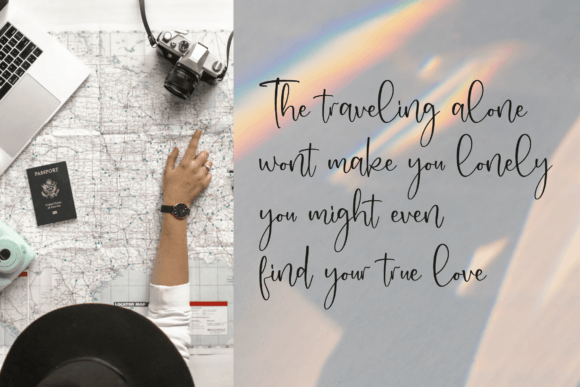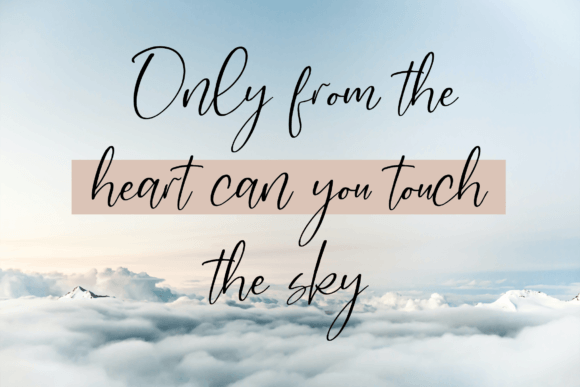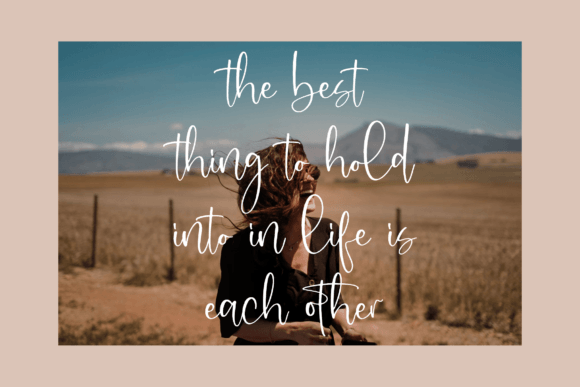
Introduction to Rafletia Font
As a designer, there’s nothing quite like the thrill of creating a beautiful piece that comes together just right. You’re brainstorming ideas, experimenting with colors, and testing out typography – and then it happens: you stumble upon the perfect font that elevates your entire project to the next level. For many of us, that font is the Rafletia Font, a stunning, high-quality handwritten script that adds a touch of elegance and sophistication to any design.
Whether you’re working on a creative project that requires a delicate, handwritten touch or simply want to add some visual interest to your designs, the Rafletia Font is an invaluable resource. With its PUA encoding, you can easily access the font’s amazing glyphs and ligatures, making it perfect for designers who want to add a personal touch to their work without sacrificing quality.
Key Features of Rafletia Font
- High-quality design with a unique, elegant style, perfect for creative projects.
- Comes in a range of sizes, including small caps, to accommodate various design requirements.
Honest Review: Rafletia Font
- ✨ High-quality typography: The Rafletia Font boasts a sleek and modern design that’s perfect for a wide range of creative projects.
- ✨ Versatility: This font is incredibly versatile and can be used for both digital and print projects, from logos to brochures.
- ⚠️ Limited language support: The Rafletia Font currently only supports a limited number of languages, which may be a issue for designers working on international projects.
- ⚠️ Not ideal for small text: The font’s design makes it less suitable for small text sizes, which can be a challenge for designers who need to use it for body text.
Overall, I’m impressed with the Rafletia Font and would recommend it to designers looking for a high-quality, versatile font for their creative projects. With a little creativity and planning, the limitations can be easily worked around.
Tips for Getting the Most Out of Rafletia Font
For the best results, use Rafletia Font on a high-quality, transparent background. This will allow the font to stand out and make it a great design resource for your creative project.